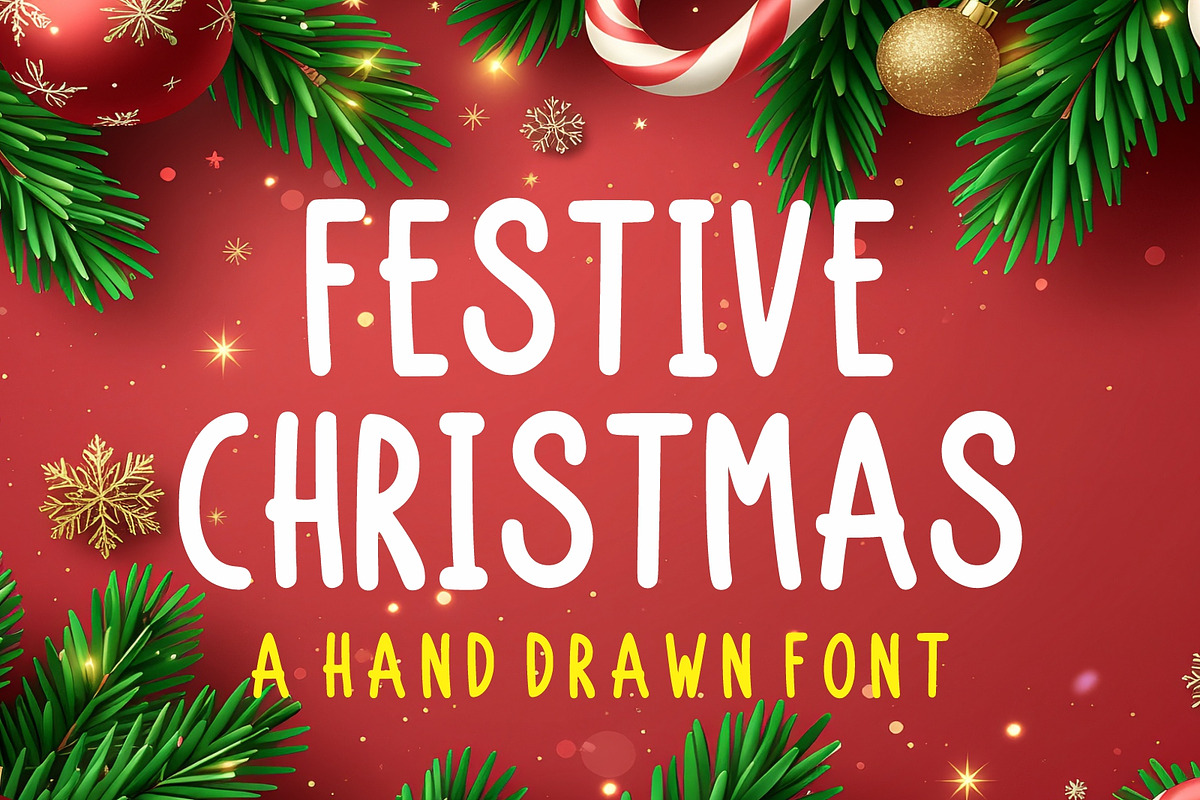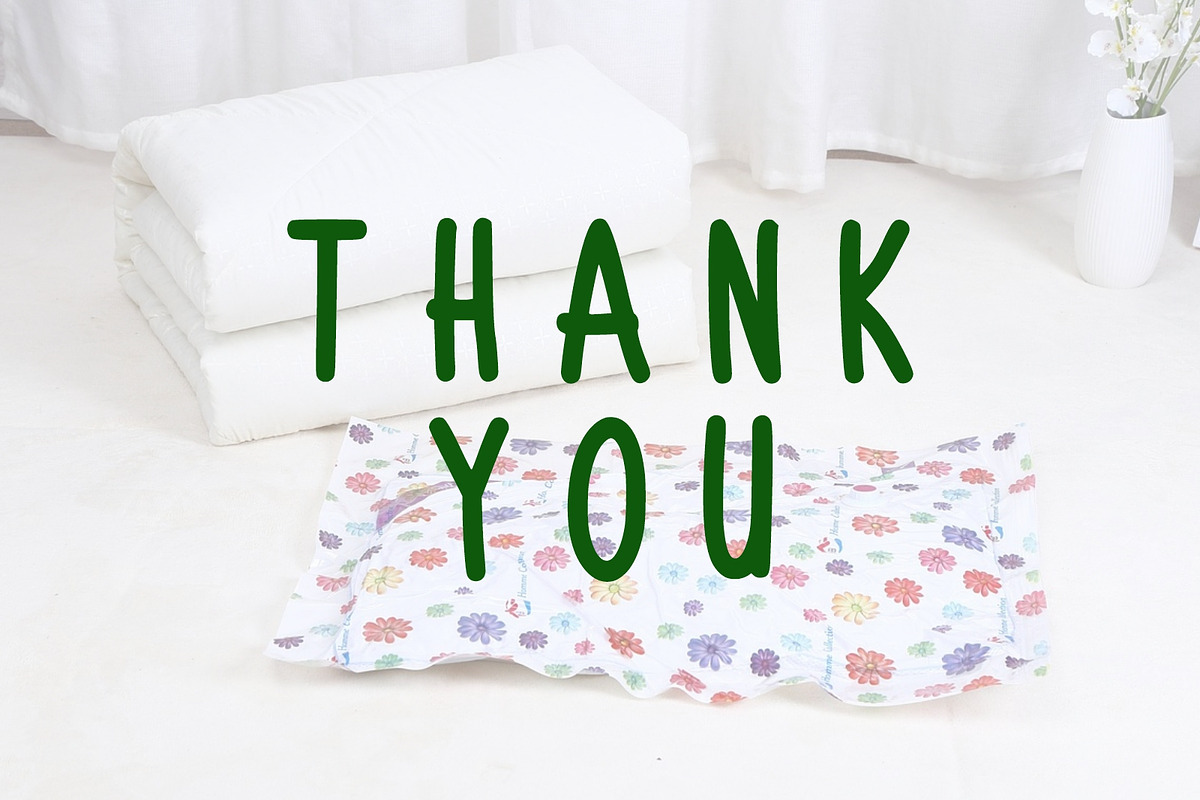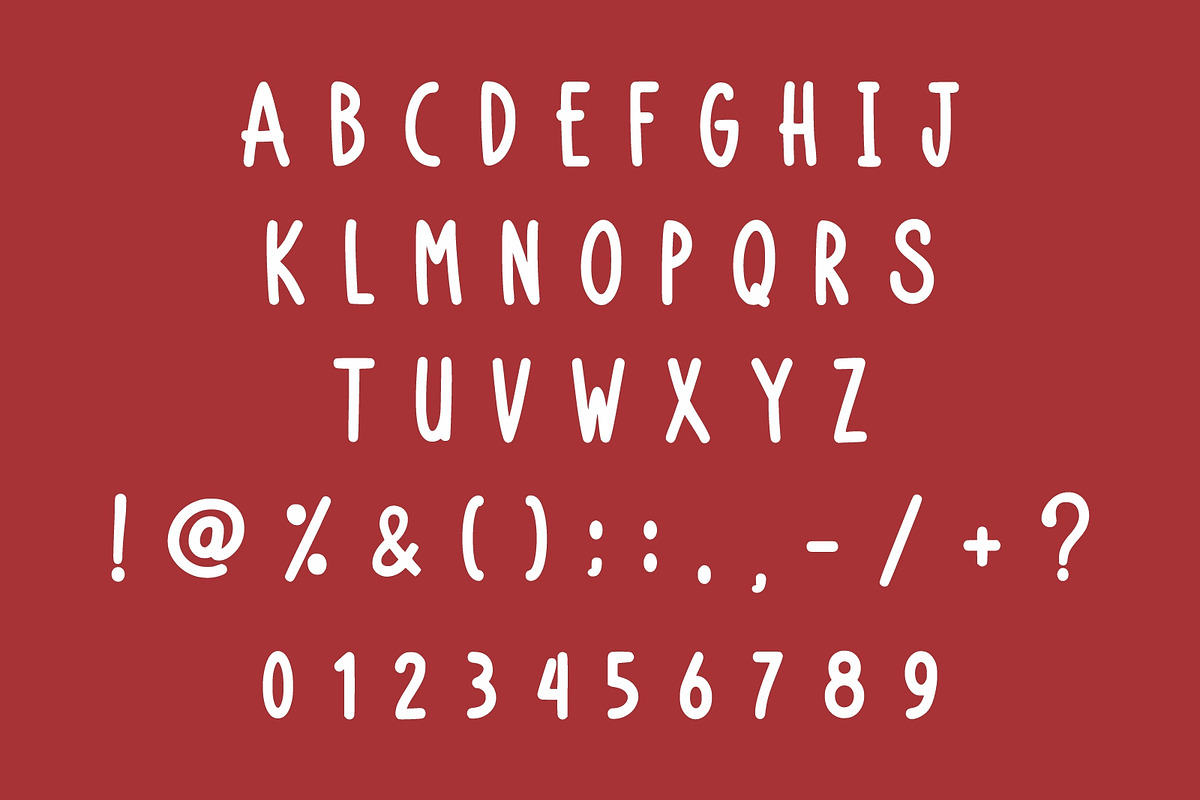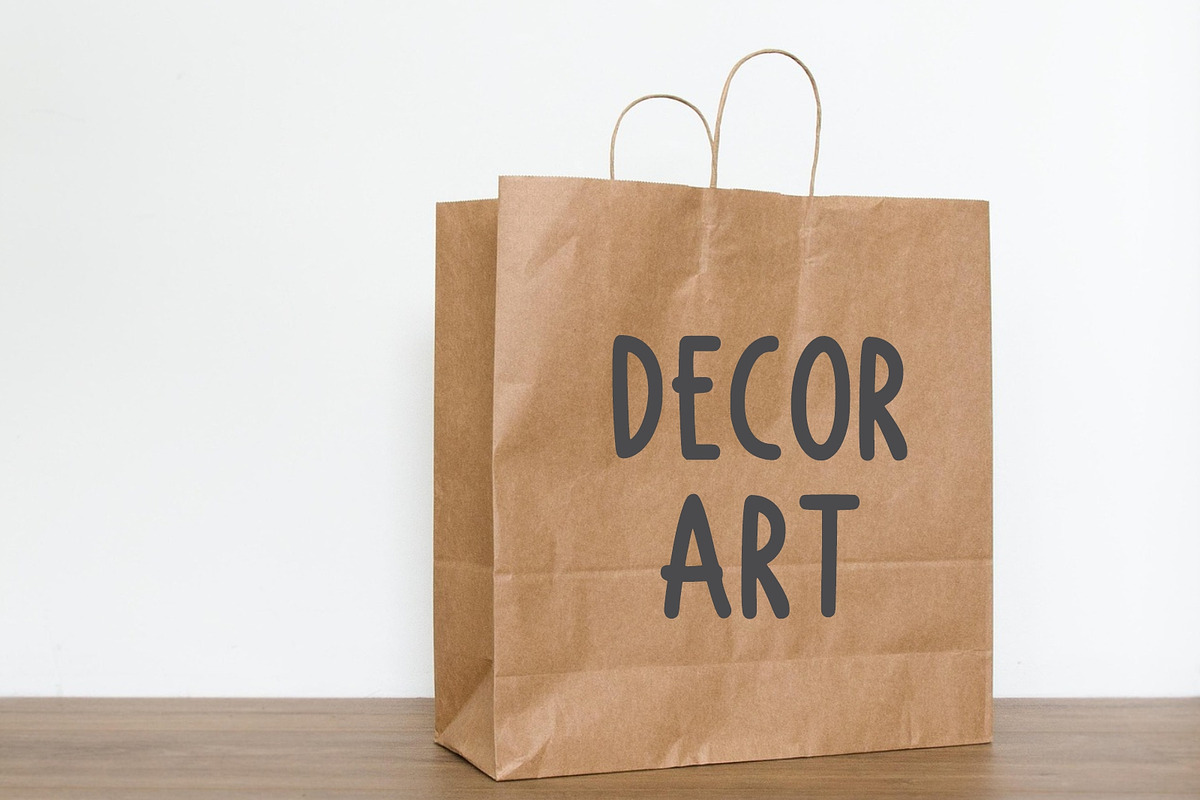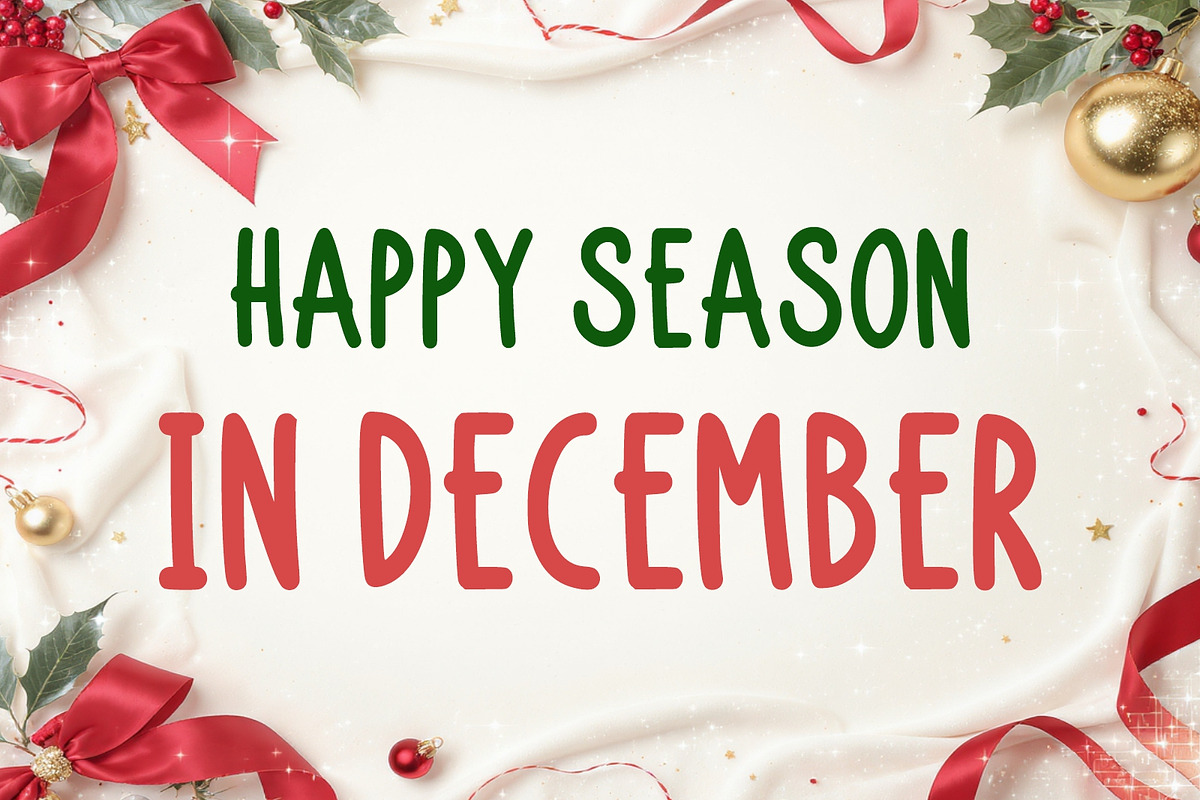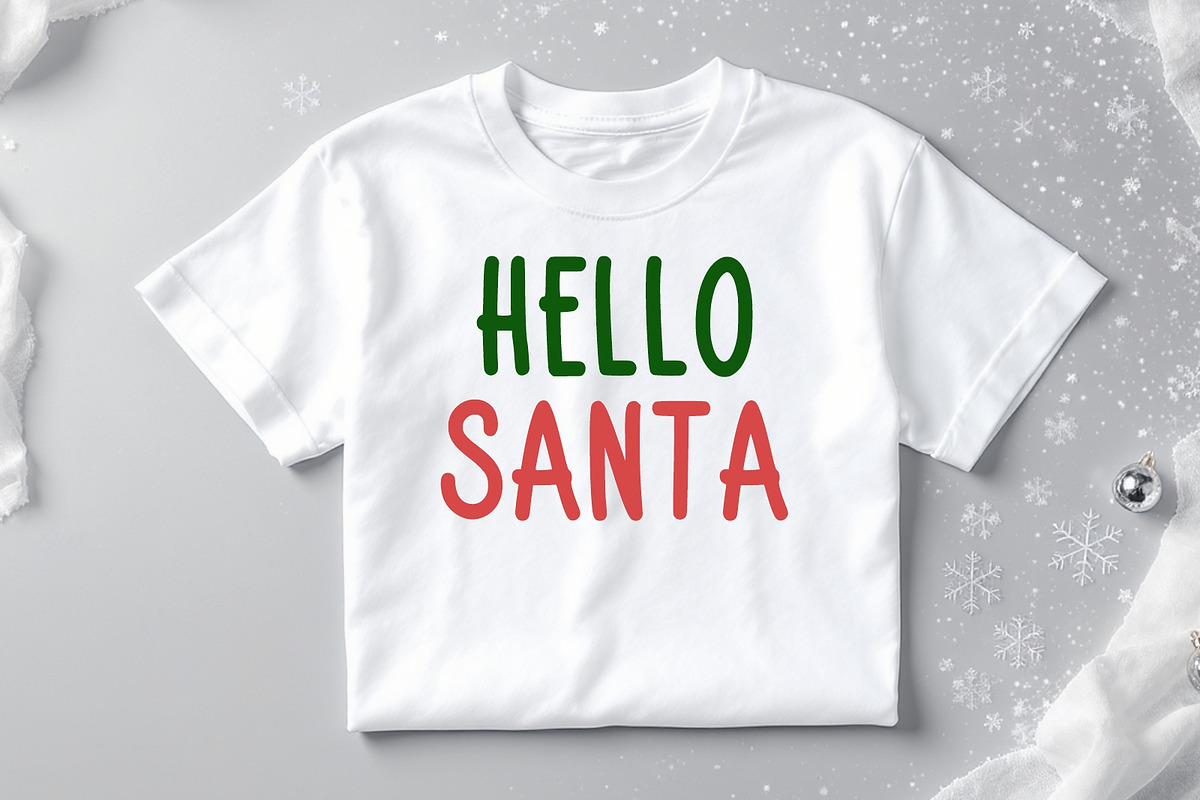
Festive Christmas
Festive Christmas Font is a hand-drawn and cheerful display typeface that captures the warmth and coziness of fall.
Its rounded, thick letterforms create a playful and approachable look, making it perfect for seasonal projects that need to stand out with charm and energy.